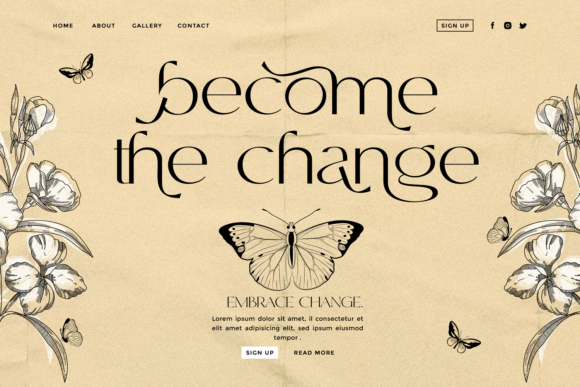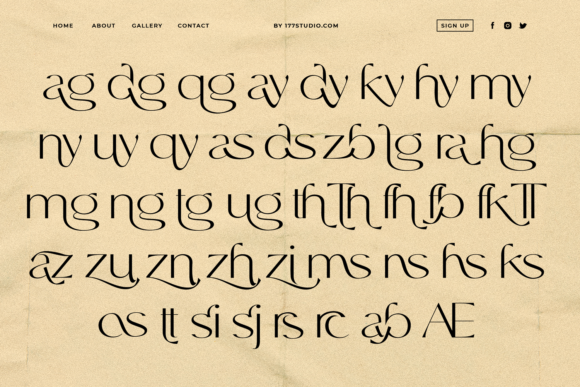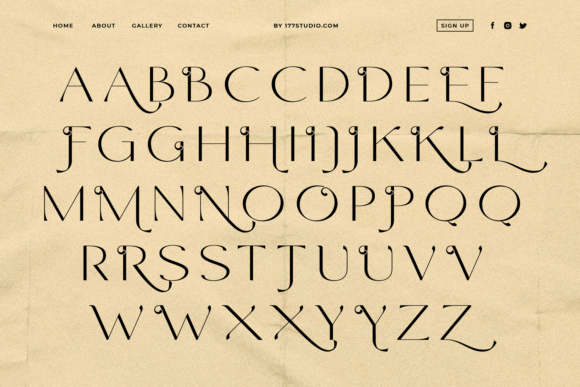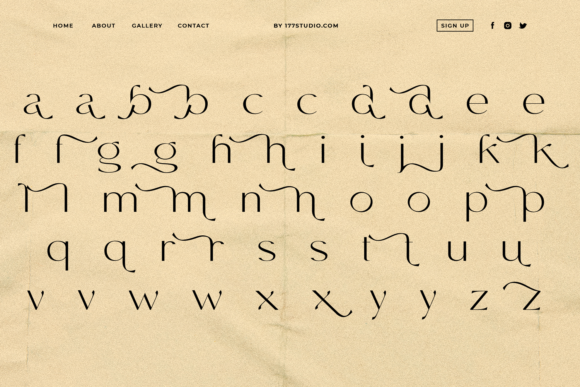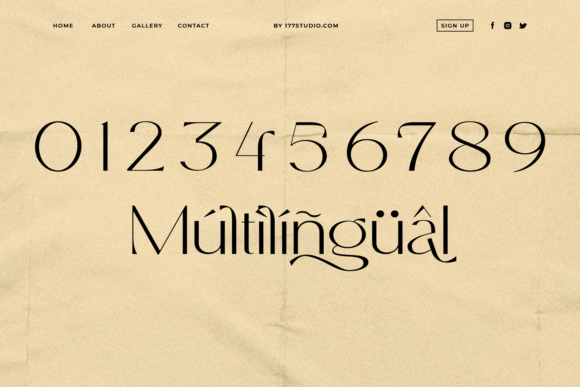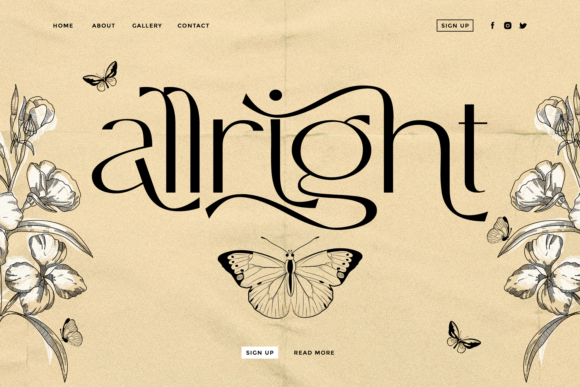
Introducing Allright Font: The Epitome of Elegance and Sophistication
In the realm of typography, few fonts manage to strike a balance between elegance and versatility. Allright Font is one such gem that has captured the hearts of designers and crafters alike. This thin and elegant serif font has become a go-to choice for those seeking to add a touch of sophistication to their projects. Whether you’re working on branding, wedding invites, cards, or any other creative endeavor, Allright Font is sure to impress.
Unparalleled Elegance
Allright Font boasts a slender yet refined design, characterized by its delicate serifs and harmonious letterforms. Its elegant appearance makes it an ideal choice for projects that demand a high level of sophistication. The font’s classic feel ensures that it remains timeless, avoiding the pitfalls of trend-based typography that may quickly become outdated.
PUA Encoding: Unlocking Creative Potential
What sets Allright Font apart from many of its contemporaries is its PUA (Private Use Area) encoding. This feature allows users to access a vast array of glyphs and swashes with ease, significantly expanding the font’s creative potential. With PUA encoding, designers can effortlessly incorporate intricate details and flourishes into their work, elevating their designs to new heights.
Advantages of PUA Encoding:
• Ease of Access: PUA encoding ensures that all glyphs and swashes are readily accessible, streamlining the design process.
• Enhanced Creativity: With a wide range of glyphs and swashes at your disposal, you’re empowered to experiment and push the boundaries of your designs.
• Consistency: PUA encoding facilitates consistency across your project, ensuring that your typography remains cohesive and polished.
Versatility Across Projects
Allright Font’s versatility is one of its most compelling attributes. Its elegant and refined design makes it suitable for a diverse range of projects, including:
• Branding: Establish a sophisticated brand identity with Allright Font, perfect for luxury brands or businesses seeking to convey elegance.
• Wedding Invites and Cards: Add a touch of romance and sophistication to your wedding stationery or greeting cards.
• Packaging: Elevate your product packaging with a font that exudes luxury and refinement.
• Digital Media: Enhance your digital content, such as blogs, social media posts, or advertisements, with a font that commands attention and respect.
Tips for Using Allright Font
To maximize the impact of Allright Font, consider the following tips:
• Pair with Complementary Fonts: Combine Allright Font with sans-serif fonts for a striking contrast that adds visual interest to your designs.
• Experiment with Swashes: Take full advantage of the font’s PUA encoding by incorporating swashes and glyphs to add personality to your typography.
• Adjust Line Spacing: Optimize line spacing to ensure that your text remains readable while maintaining the font’s elegant flow.
Allright Font stands as a testament to the power of elegant and versatile typography. Its thin and refined serif design, coupled with PUA encoding, makes it an indispensable tool for designers and crafters seeking to create sophisticated and memorable projects. Whether you’re working on branding, wedding invites, or any other creative venture, Allright Font is poised to elevate your designs to new heights of elegance and refinement.